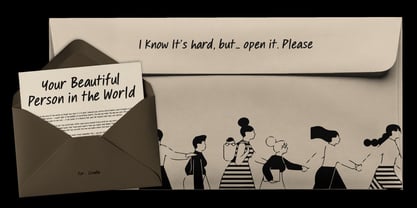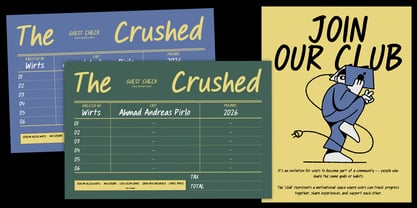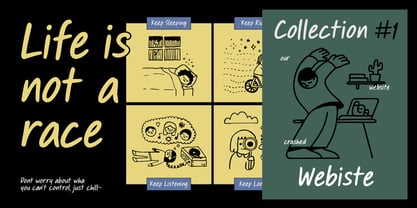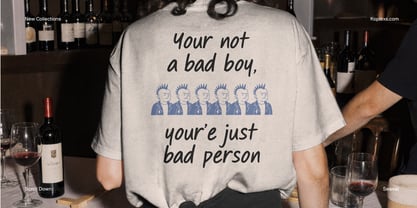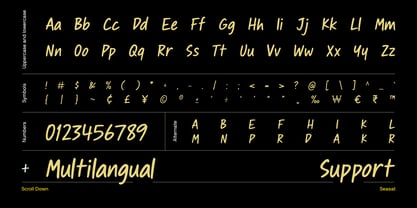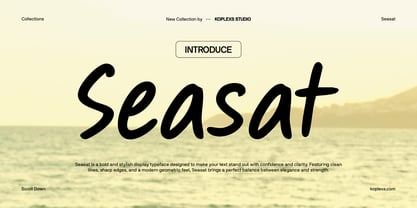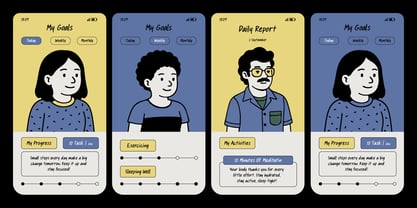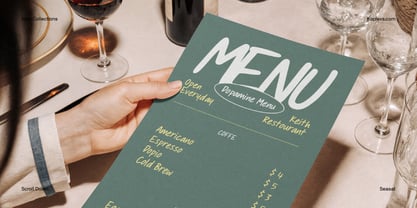
Seasat
Seasat Font Handwritten Display Typeface for Logos, Posters, Menus, Packaging, and Creative Branding
Seasat Font is a handwritten display typeface with a casual marker personality, created for designs that need a warm, expressive, and human feel. Its hand drawn rhythm, smooth strokes, and natural letter shapes make every word look friendly, personal, and full of character.
Designed for large text and visual statements, Seasat works beautifully for logos, posters, menus, packaging, merchandise, quote designs, social media graphics, and creative branding. It has the charm of real handwriting while still keeping a clean and readable appearance, making it useful for both digital and printed projects.
Seasat Font is a great choice for designers, studios, small brands, restaurants, cafes, lifestyle shops, content creators, and creative businesses that want typography with personality. Use it for short phrases, product names, campaign headlines, poster titles, greeting cards, stickers, and visual identity projects.
The font feels casual, expressive, and approachable. It pairs well with photography, illustration, minimal layouts, lifestyle branding, handmade products, and editorial compositions. Whether you are building a friendly cafe identity, a playful merch collection, or a memorable social media campaign, Seasat Font brings a natural handwritten voice to your design.
If you are looking for a handwritten font that feels natural, stylish, and easy to use, Seasat Font is ready to become part of your creative toolkit. It gives your text a personal voice and helps your design feel more memorable without looking too formal.